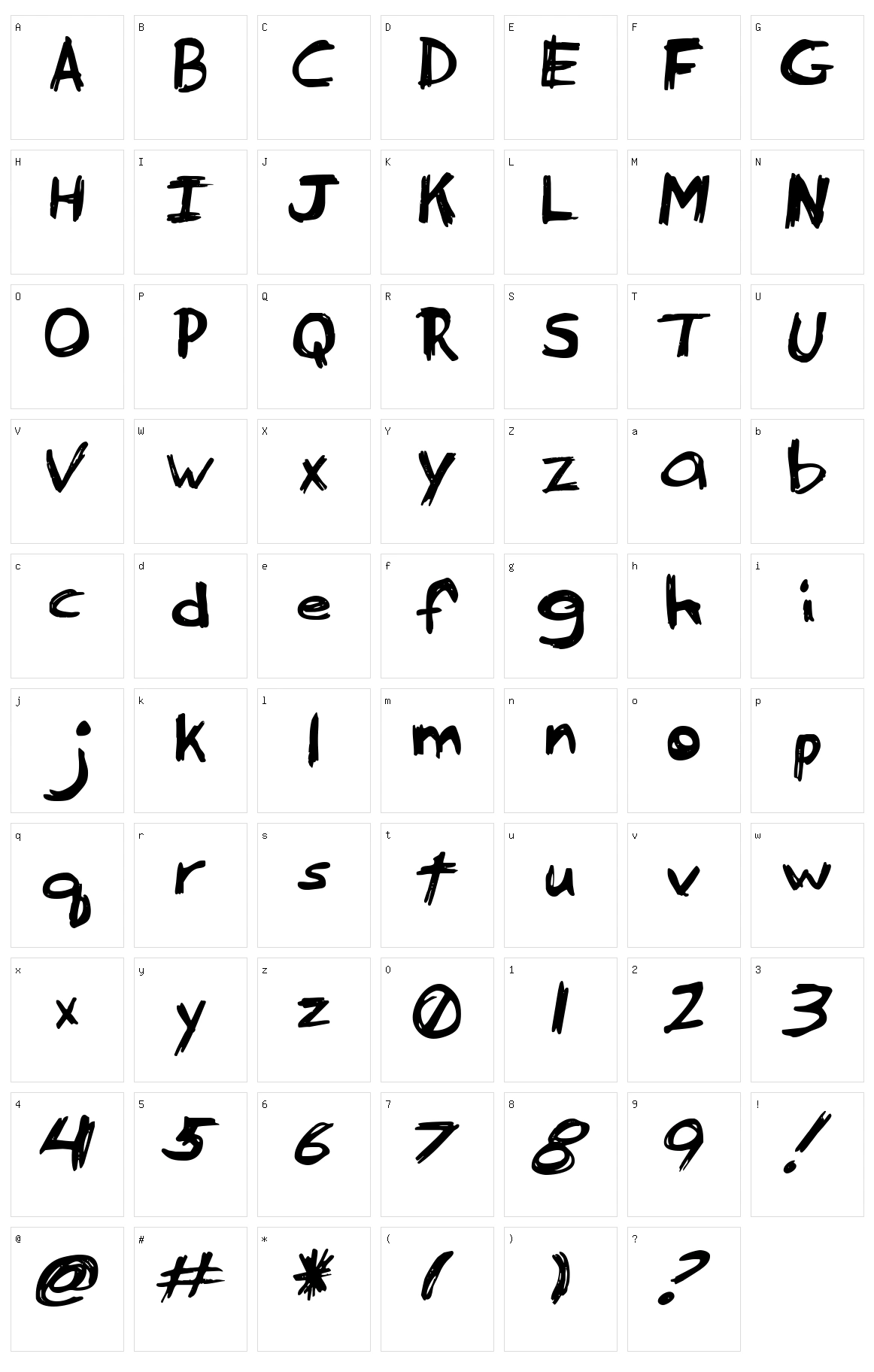
The free font Serpico is carefully designed by Screaming Fonts, showcasing a thoughtful balance of creativity and usability and falls under the Trash font style. When you download the ZIP file, it contains only 22.63 KB of font files, making it lightweight and quick to download. Please review the license details below to understand permitted usage and distribution rights. If license information is not available, we recommend using this font for personal projects only or contacting the author directly for commercial usage permissions.